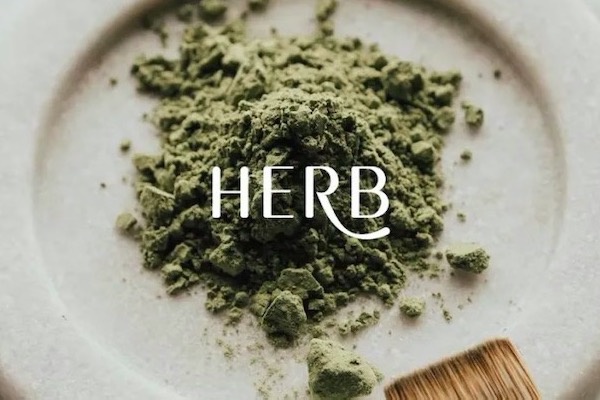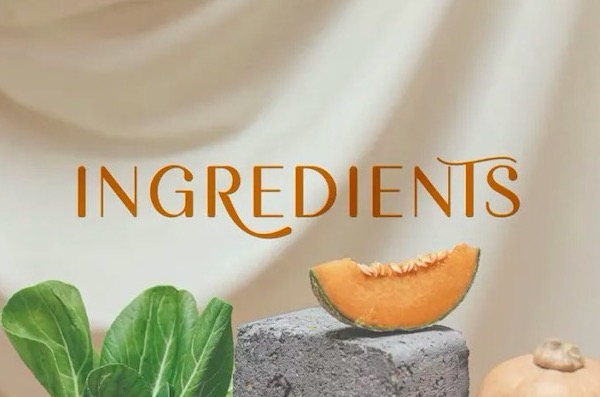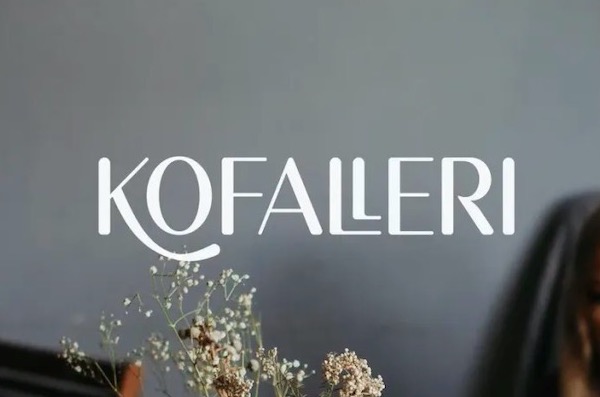
Kofaleri display font Font is a sporty & modern sans serif typeface with luxury letters. This sans font was created inspired by modern sporty clubs but it will also work well for any other designs or industries.
Kofaleri Display Sans Font